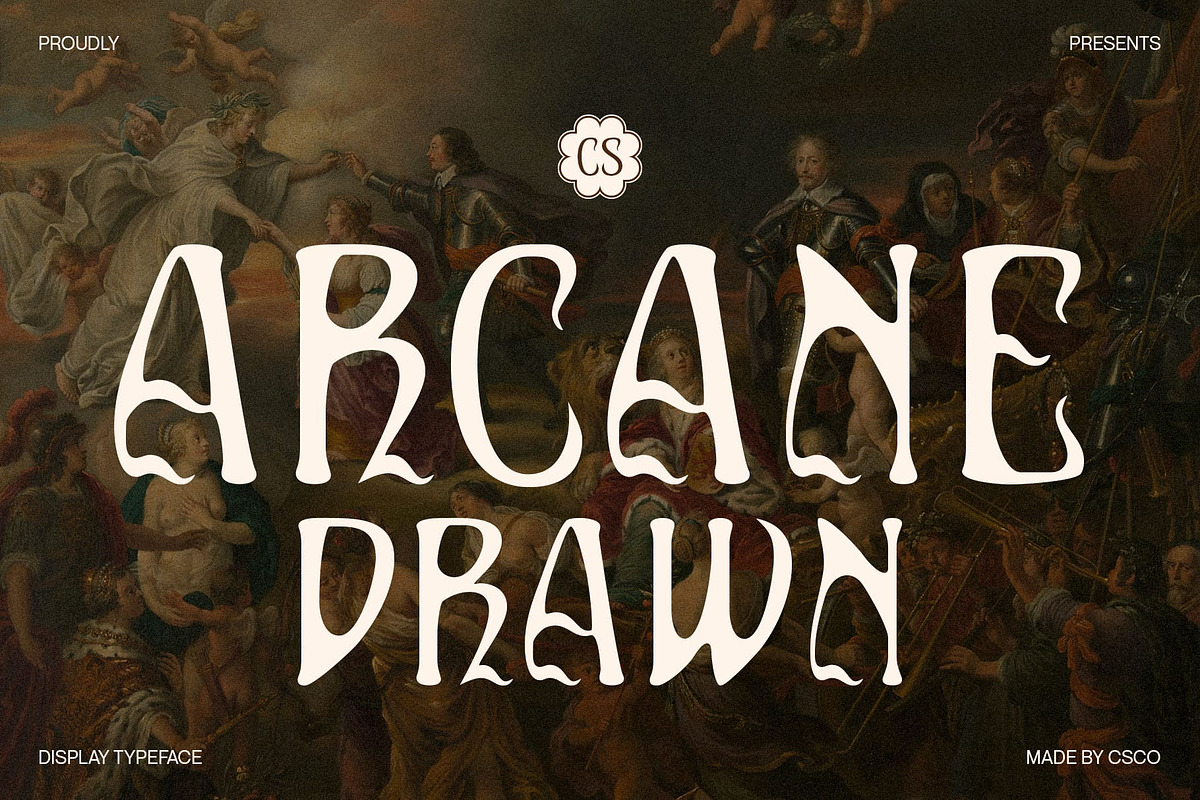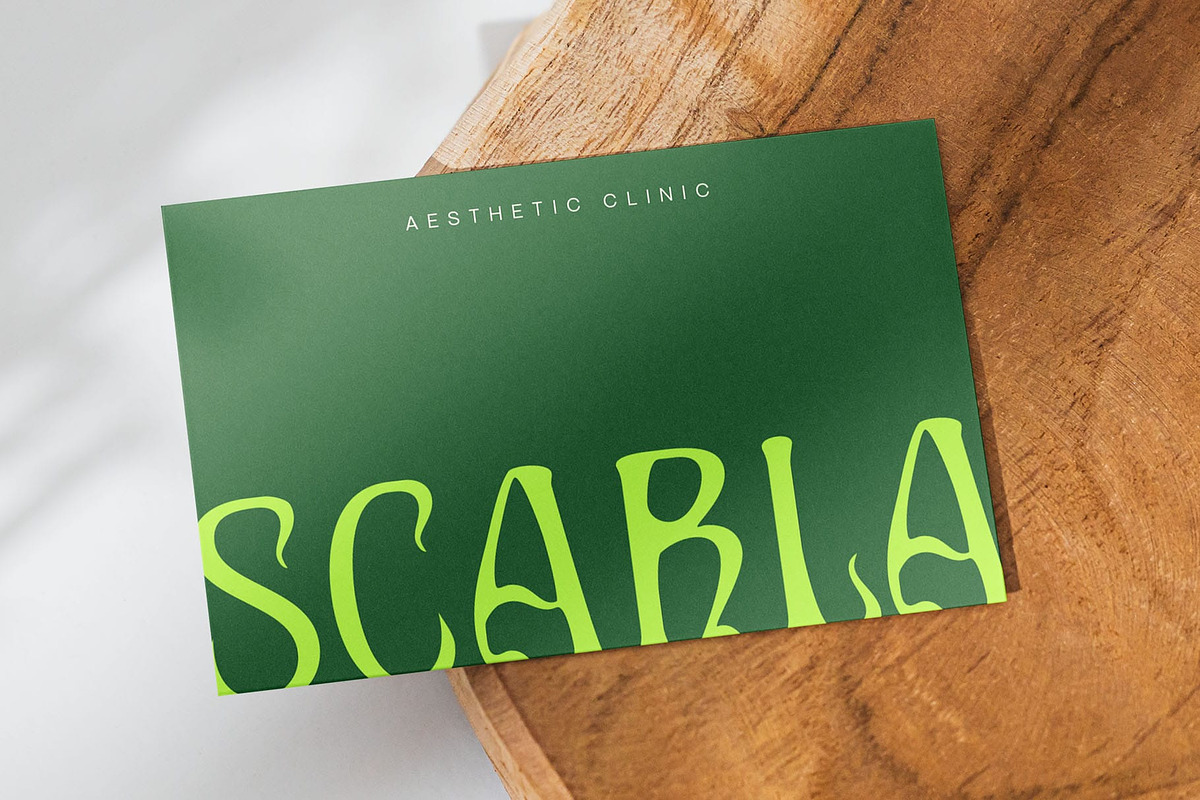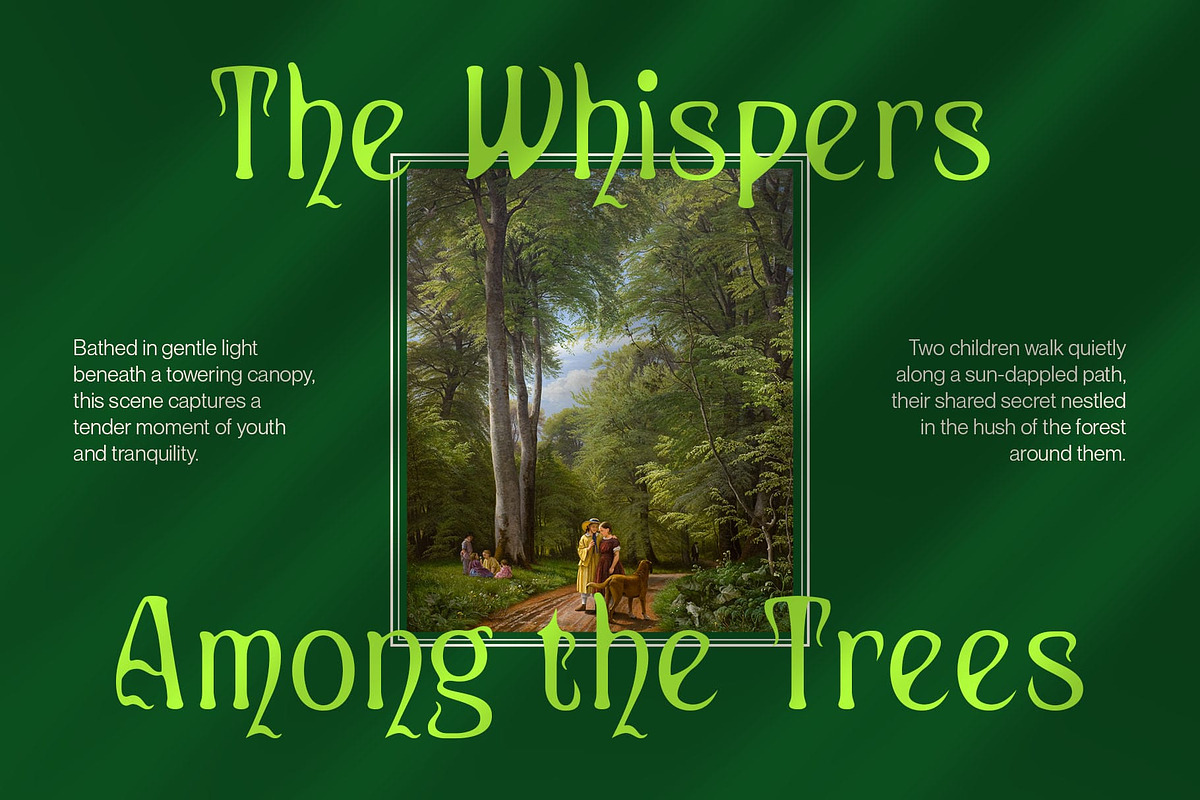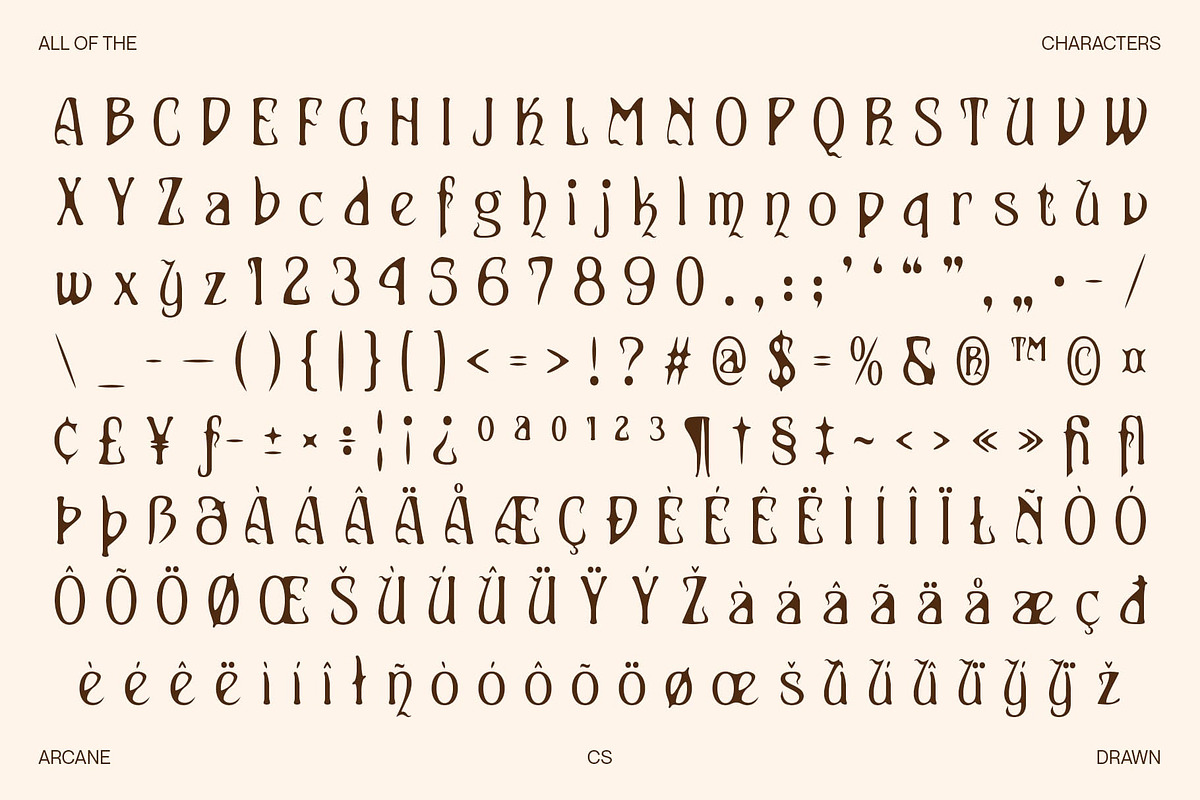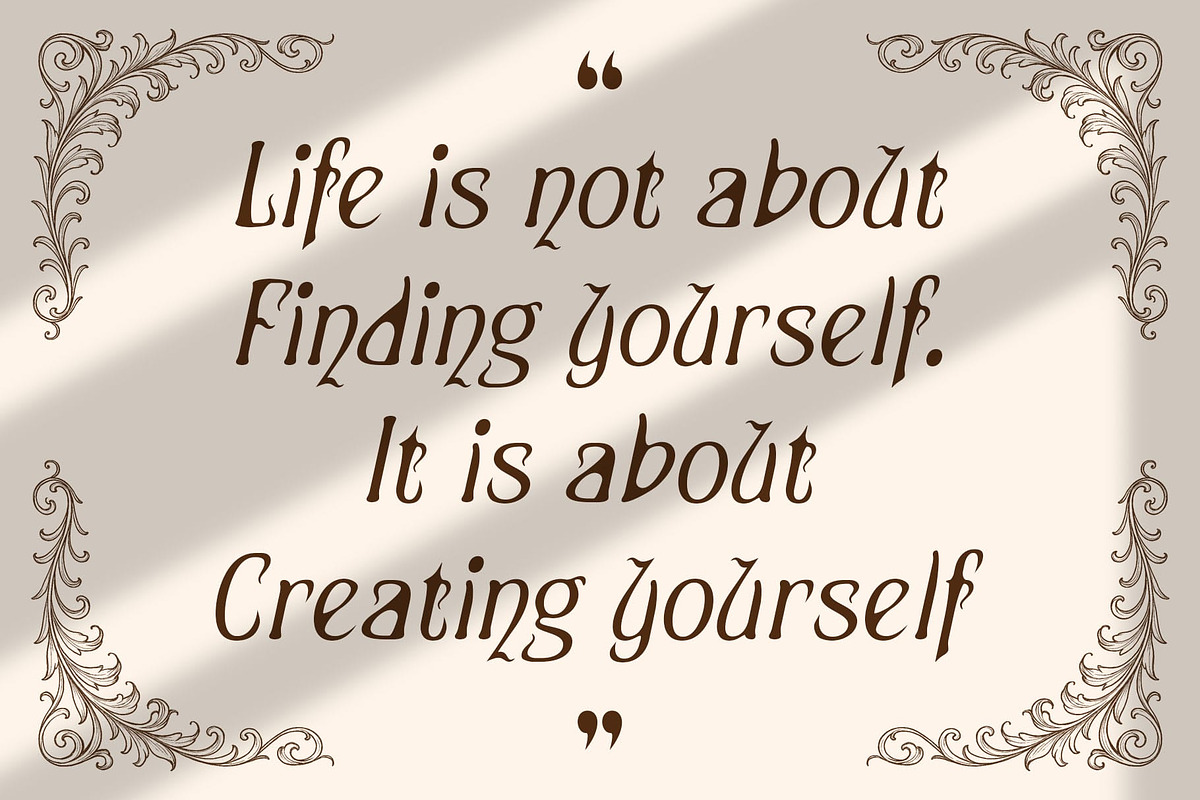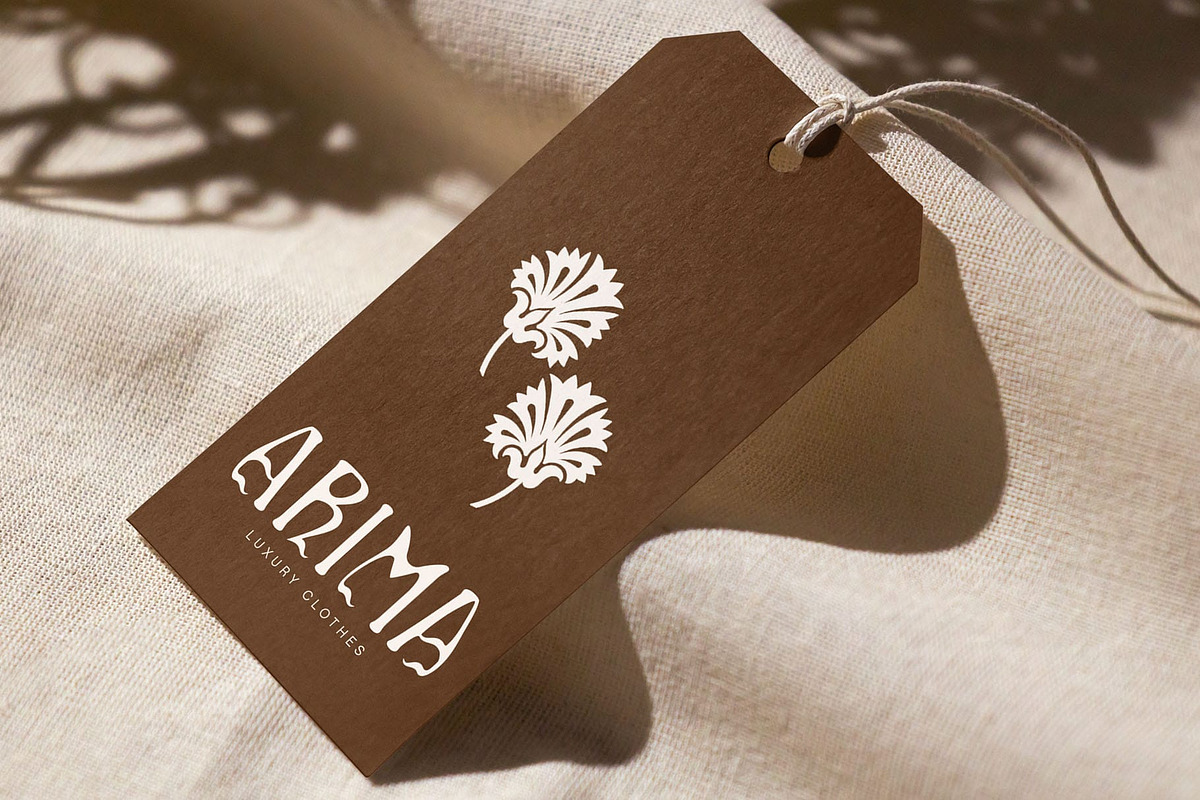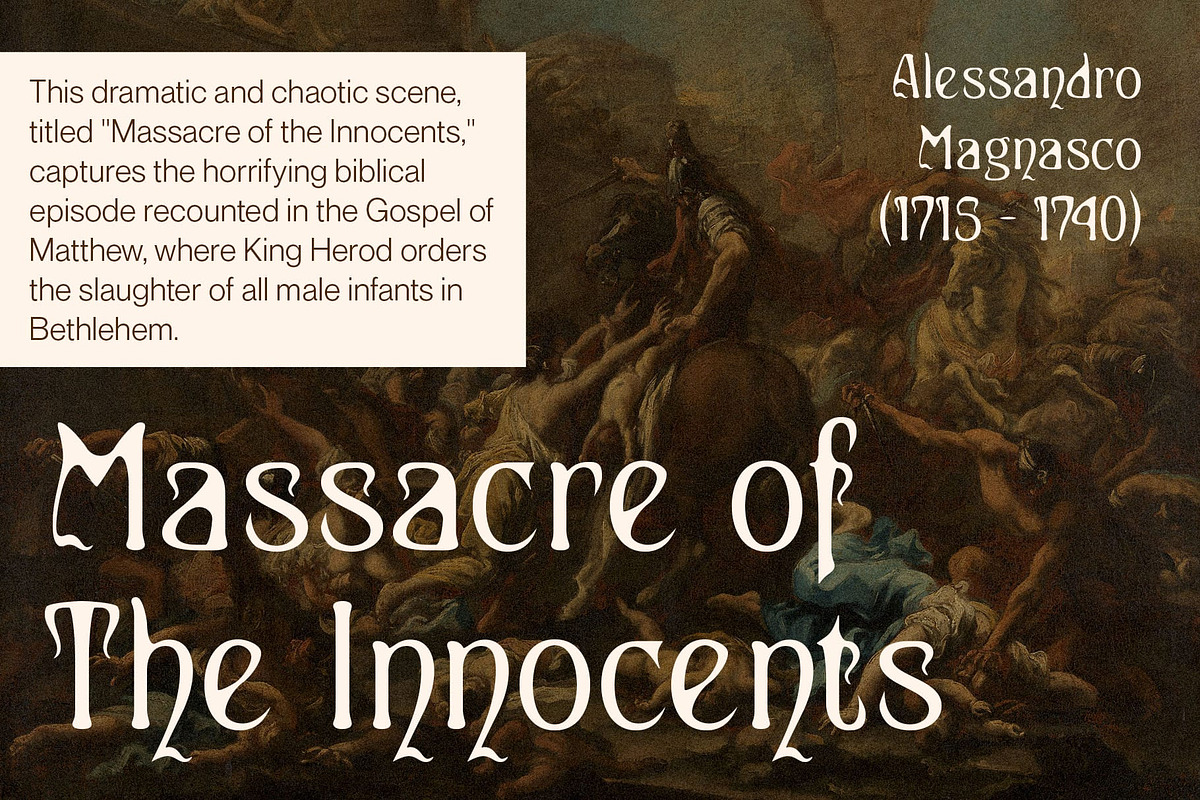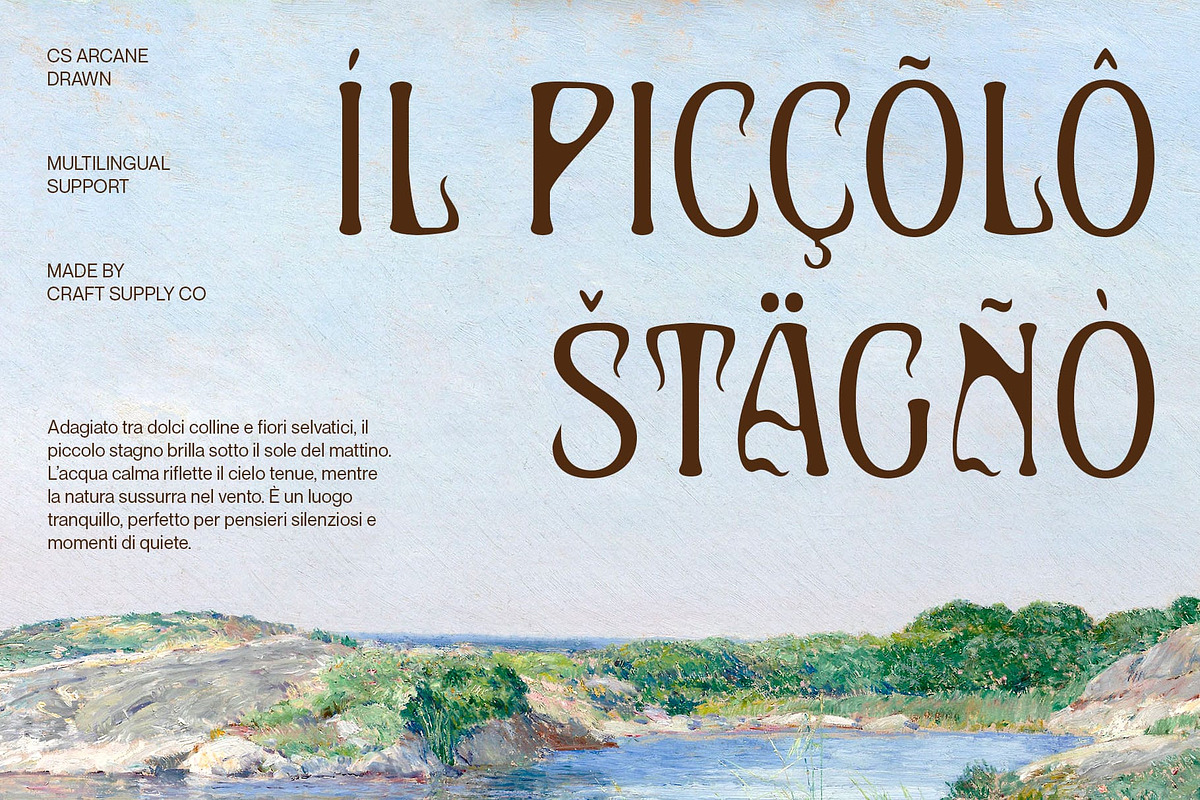
CS Arcane Drawn
CS Arcane Drawn – Decorative Serif with Handcrafted Soul
Elegant Serif Structure with Unique Decorative Appeal CS Arcane Drawn is a modern display serif font enriched with ornate and artistic detailing. Its foundational serif construction provides a refined and contemporary framework, while its decorative forms introduce striking visual interest. This blend of sophistication and individuality makes it stand out in any design that calls for beauty and character.
Hand-Drawn Effect for Added Texture and Expression The drawn effect infuses the font with a handcrafted, organic texture, giving it an authentic and expressive personality. Each letter feels intentionally imperfect, creating a visual rhythm that feels alive, artistic, and thoughtfully human. It adds warmth and depth to an already visually rich serif.
Designed for Impactful and Artistic Use Perfect for bold and expressive creative work, this decorative font is ideal for projects where aesthetics and originality are key. From editorial spreads and book covers to posters and visual identities, the font communicates a story, mood, and presence with every letter.
Ideal for Book Covers, Art Posters, and Bold Branding Whether used in publishing, branding for creative industries, or stylized campaigns, this artistic font offers a unique voice. It’s a go-to choice for designers who want to combine classic formality with decorative artistry and handmade charm, resulting in work that is captivating, memorable, and full of soul.